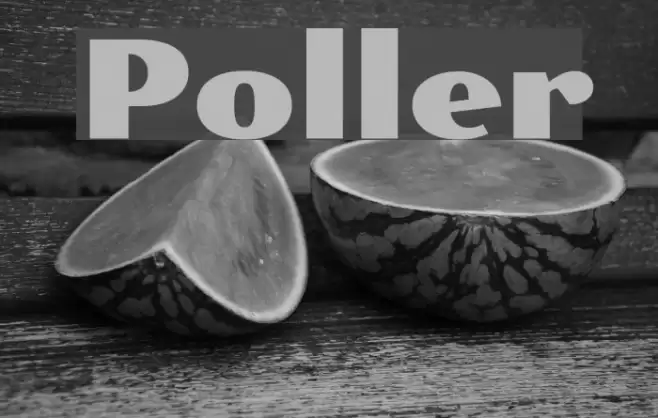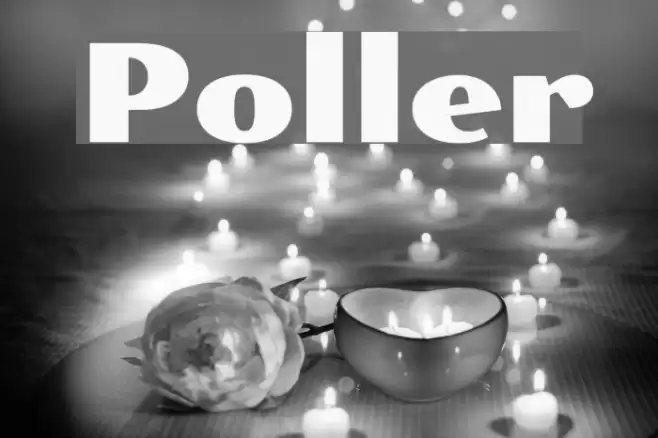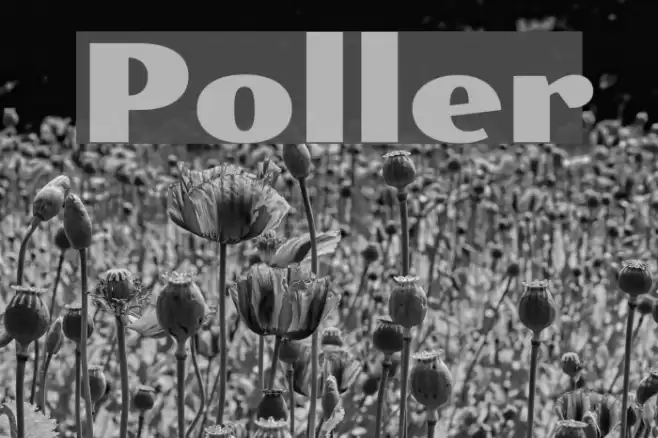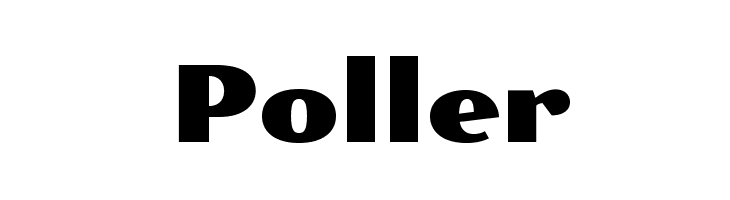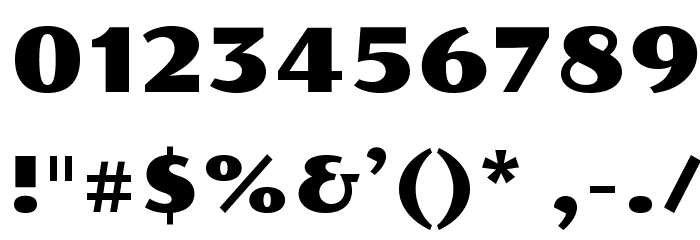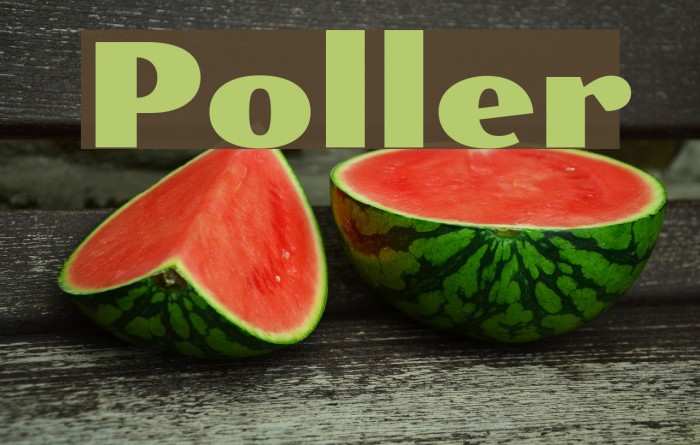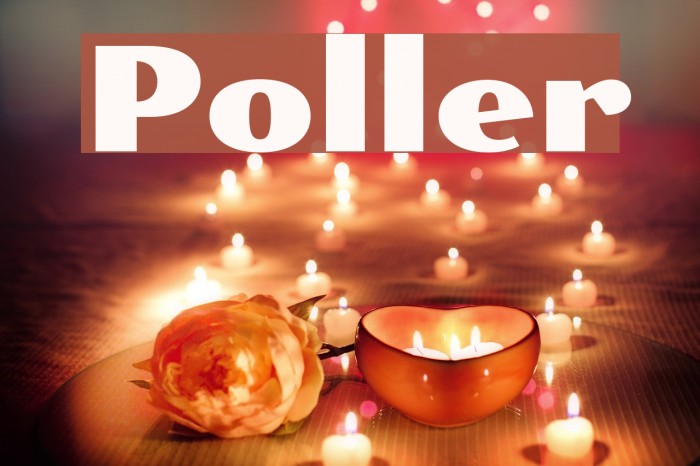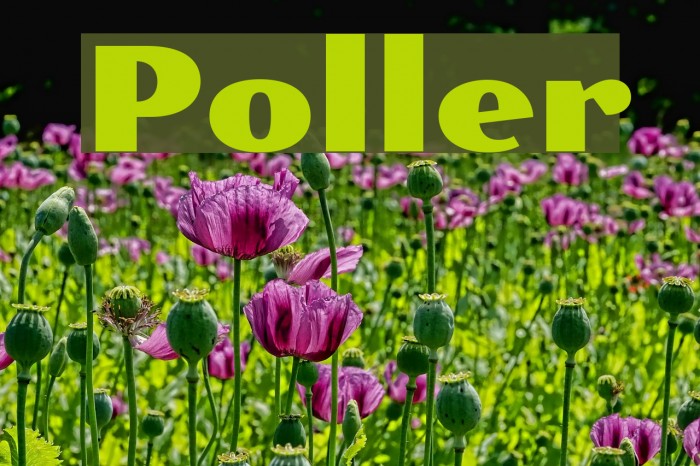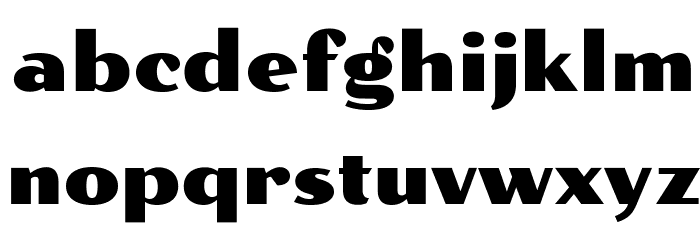
Poller Font
Poller Description
This font exhibits a bold and robust character with thick strokes and a strong presence. The uppercase letters are solid and commanding, while the lowercase letters maintain a consistent weight, offering a harmonious balance. The numerals are clear and easily distinguishable, making them suitable for various applications. Special characters are well-defined, adding versatility to the font's use. The overall design is modern and impactful, making it ideal for attention-grabbing headlines and branding projects.
A bold, modern font with strong, thick strokes and a commanding presence from Uncategorized fonts.
- Proposed Projects: Ideal for branding, advertising, headlines, and any project requiring a strong visual impact.
- Use Case: Headlines, Logos, Branding